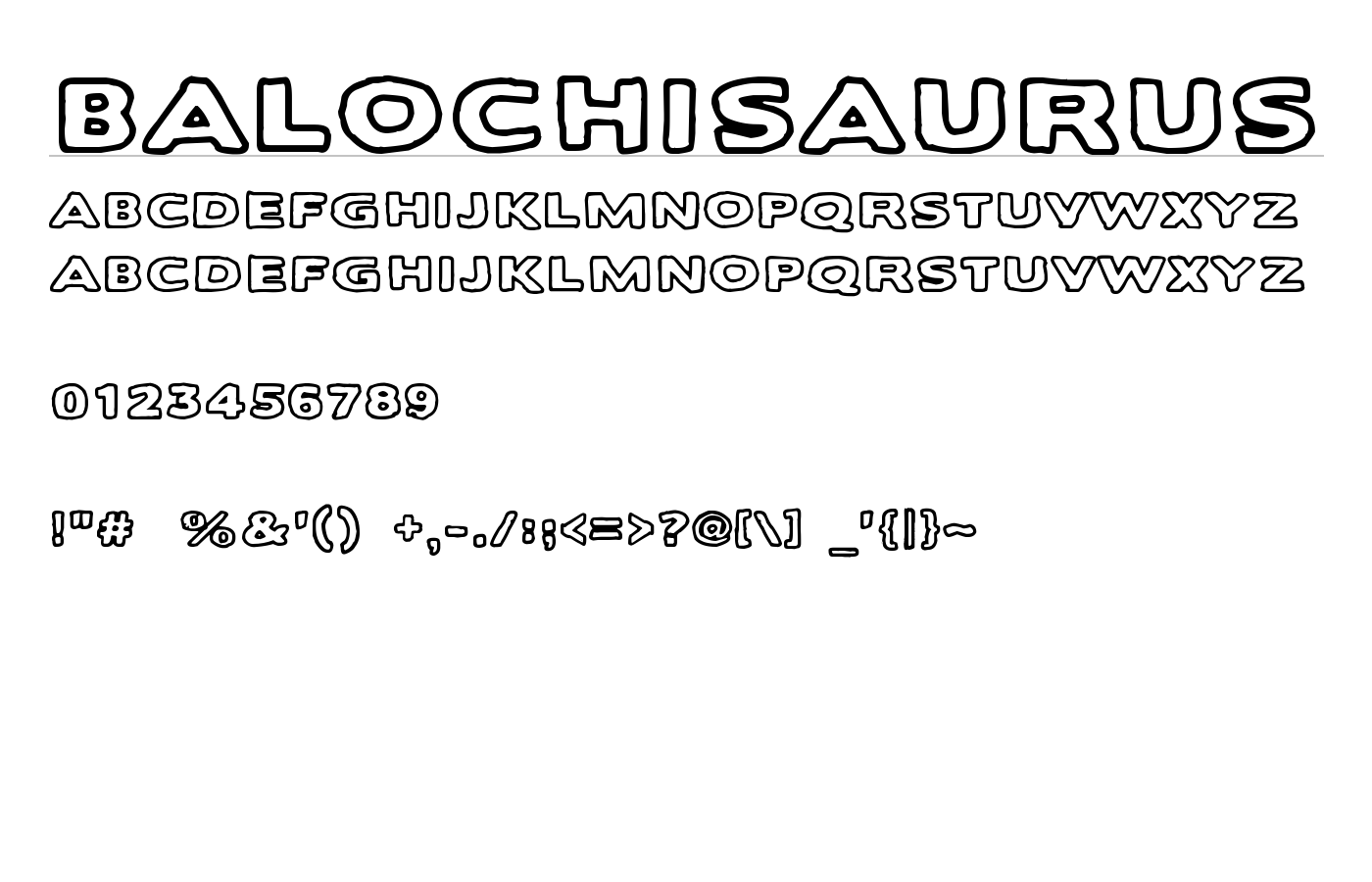
Balochisaurus is a playful and bold sans serif font featuring thick, rounded outlines that give it a fun, hand-drawn feel. Its chunky letterforms and even stroke weight make it highly readable, perfect for eye-catching headlines, children's products, or casual branding that wants to appear friendly and approachable. This font works best in settings where a relaxed, informal vibe is desired, adding charm and personality without sacrificing clarity.
Balochisaurus Font
About Balochisaurus Font